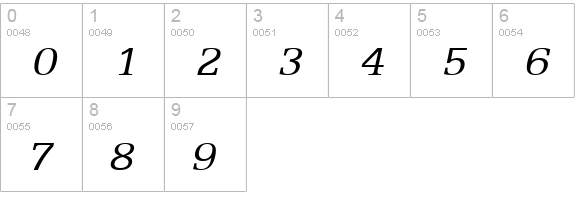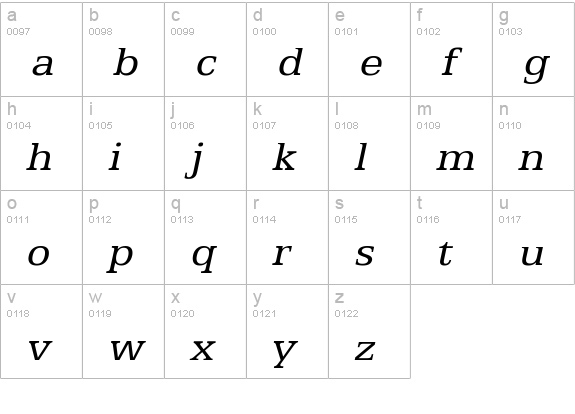
Eggo Wide Italic is a distinctive, extended-width, italic variant in the Eggo typeface family \xE2\x80\x94 well suited to design and typography projects.
Introducing Eggo Wide Italic, a captivating and versatile font that effortlessly combines elegance with a touch of modernity. With its slanted and slightly bolded characters, this typeface exudes a sense of sophistication, making it perfect for a wide range of design projects. Eggo Wide Italic boasts a unique combination of wide letterforms and a sleek italic slant, allowing for a harmonious blend of legibility and artistic flair. Its fluid strokes and subtle curves create a sense of movement, adding a dynamic touch to any text. This font is the epitome of versatility, as it seamlessly adapts to various design contexts. Whether you're creating eye-catching headlines, elegant invitations, or stylish logos, Eggo Wide Italic will elevate your designs to new levels of visual excellence. One of the most remarkable aspects of Eggo Wide Italic is its availability as a free download. Thanks to FontsMarket.com, this exceptional font can be freely accessed and utilized by designers and enthusiasts alike. This generous offer allows you to experiment and explore the endless possibilities of Eggo Wide Italic without any restrictions. So, if you're looking to add a touch of sophistication to your design projects, don't miss out on the opportunity to enhance your creative endeavors with Eggo Wide Italic. Download it for free at FontsMarket.com and unlock a world of elegance and artistic expression.